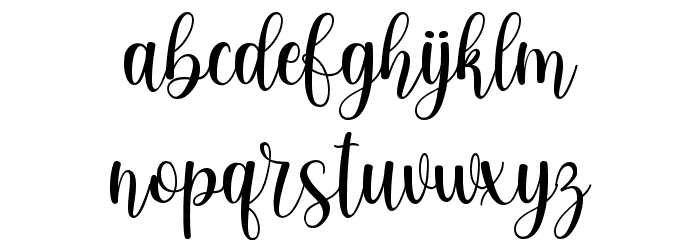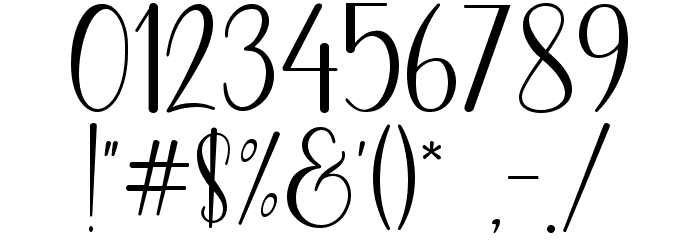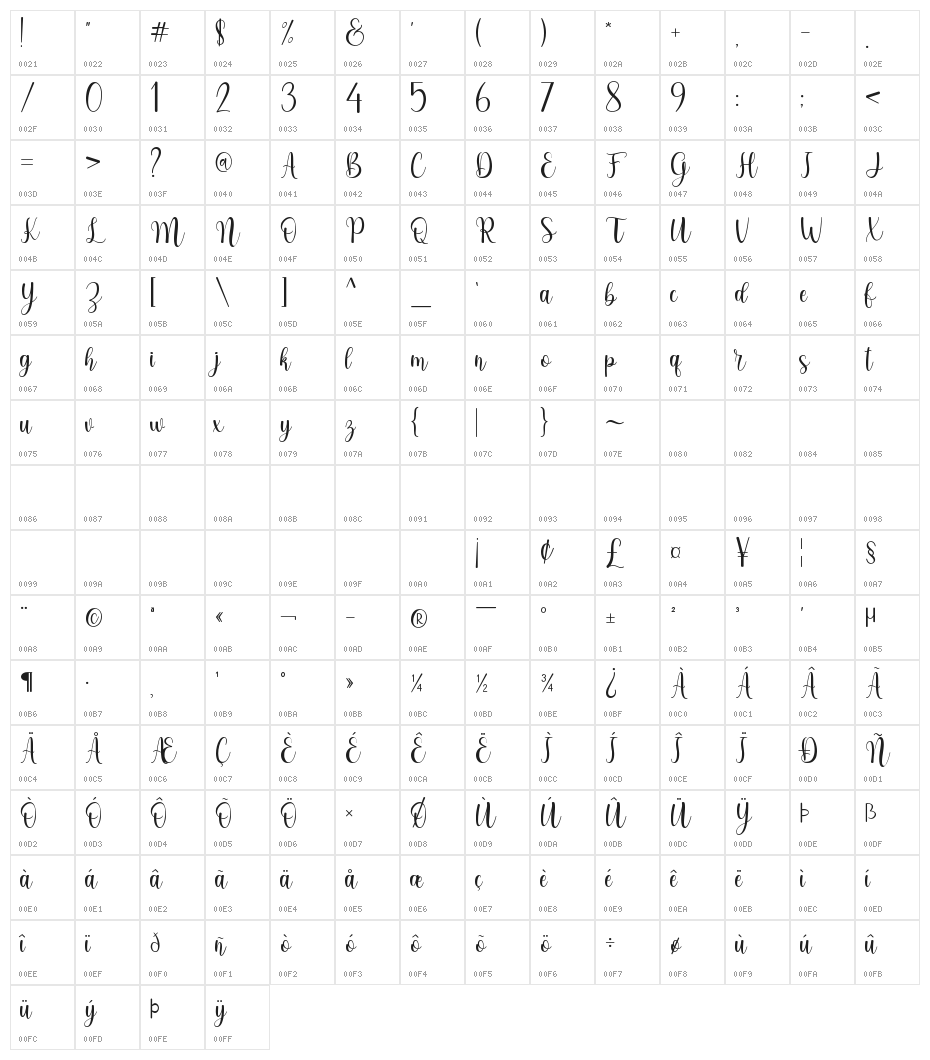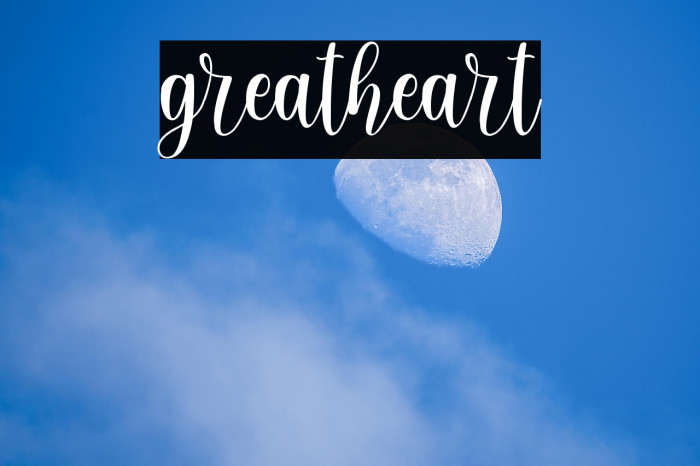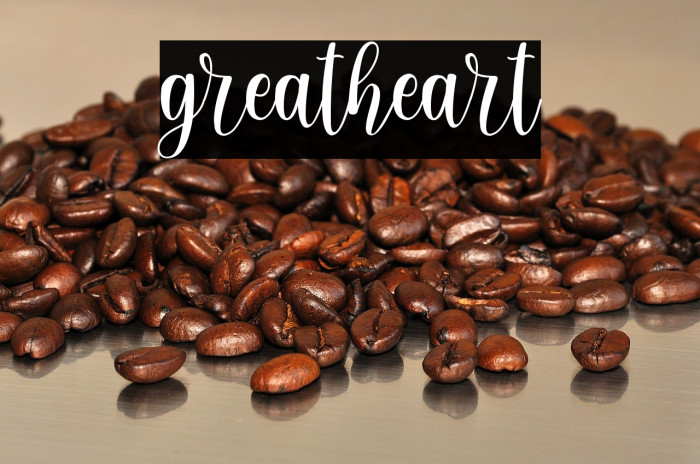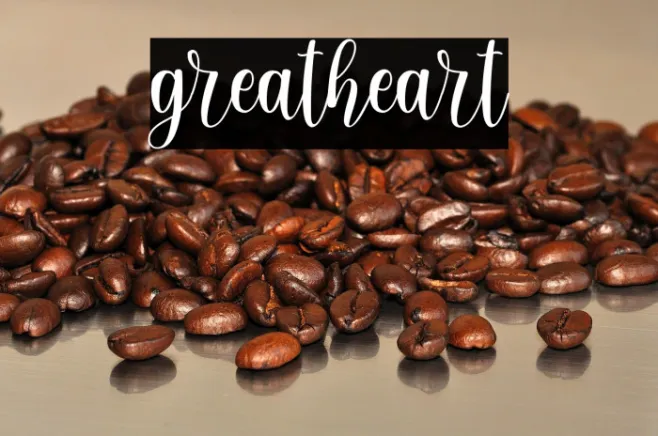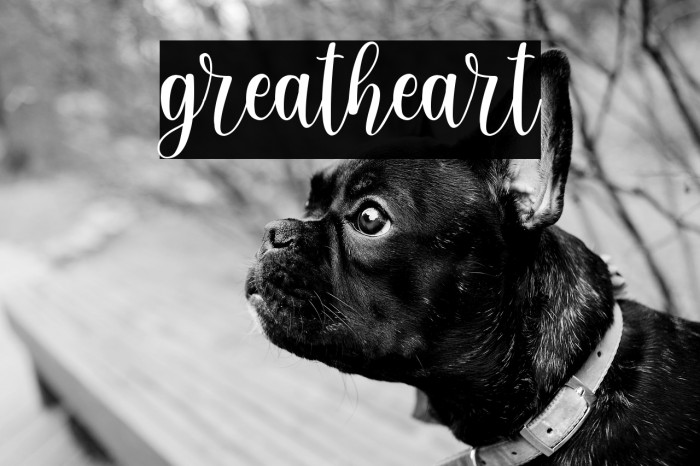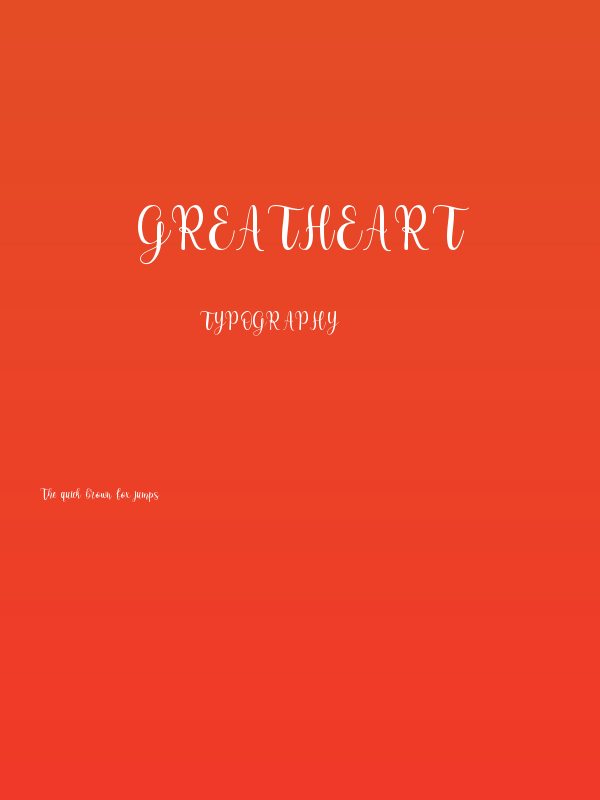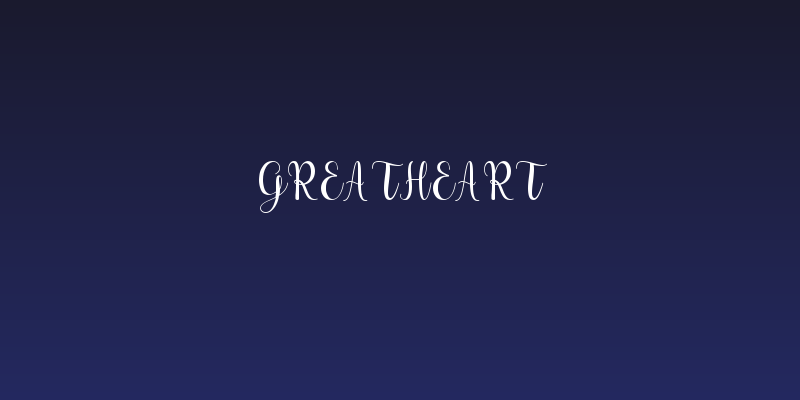
greatheart Font
This font features an elegant and flowing script style, characterized by its smooth, cursive strokes and graceful curves. The uppercase letters are particularly ornate, with sweeping lines that give a sense of movement and fluidity. The lowercase letters maintain a consistent style, with rounded forms and a slightly playful touch. Numbers and special characters are designed to match the overall aesthetic, ensuring a cohesive look. The font's design is both sophisticated and approachable, making it suitable for a variety of creative applications.
An elegant and flowing script font with graceful curves.
- Font: greatheart
- Proposed Projects: Ideal for wedding invitations, greeting cards, branding, and logo design.
- Category: Script
- Use Case: Logos, Invitations, Greeting Cards